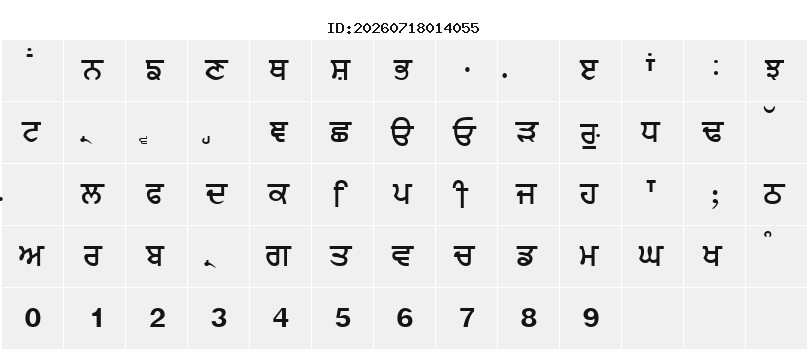
• Font Name: BJanmeja5A
• Full Font Name: BJanmeja5A
About BJanmeja5A.ttf
BJanmeja5A.ttf is a modern, elegant sans-serif font designed for ultimate readability and visual harmony. Perfect for branding, headlines, web design, and print materials.